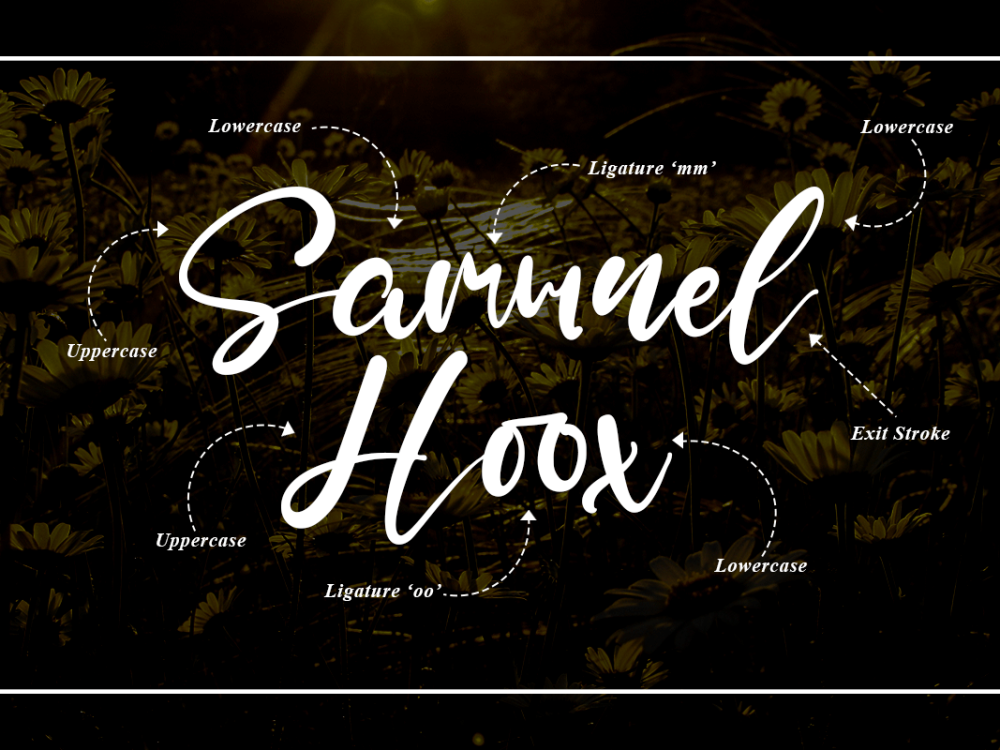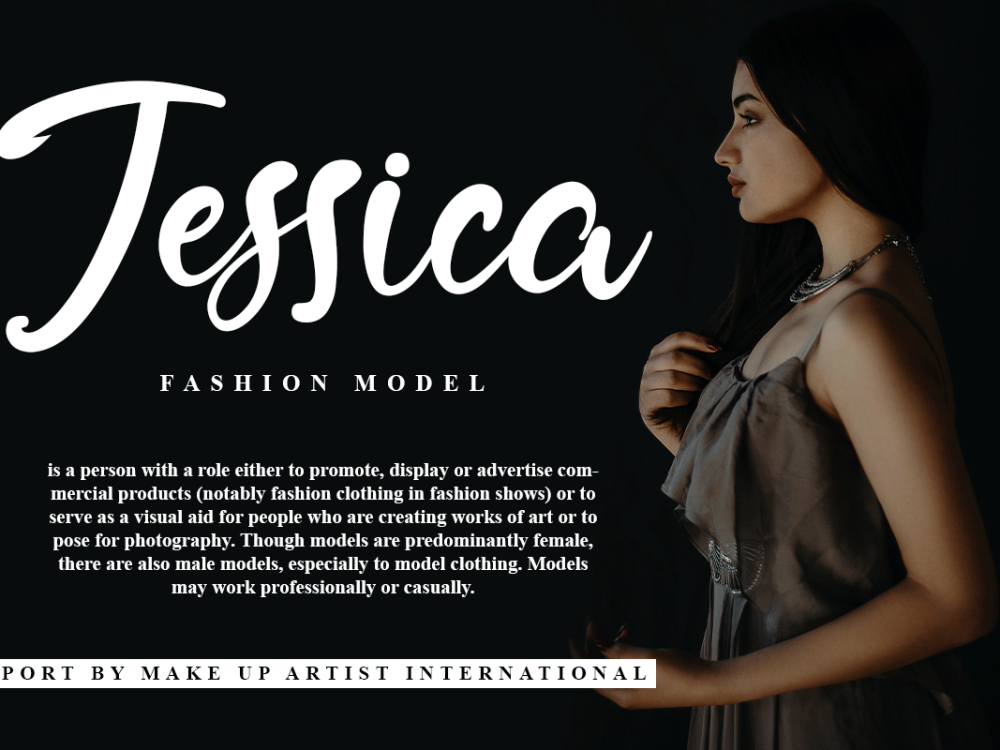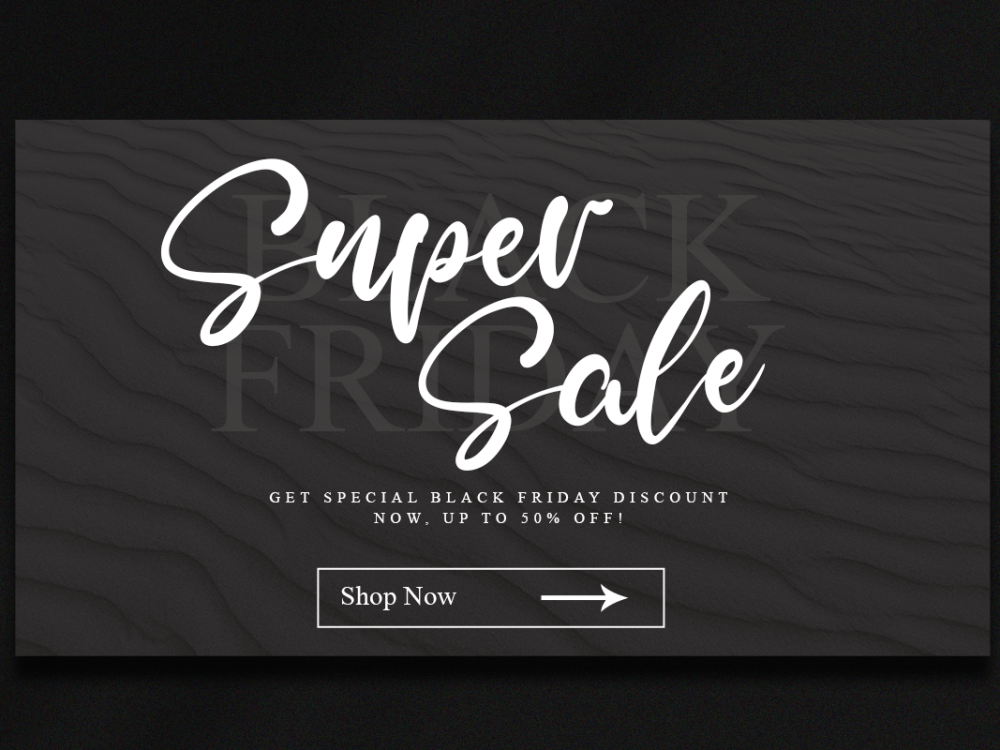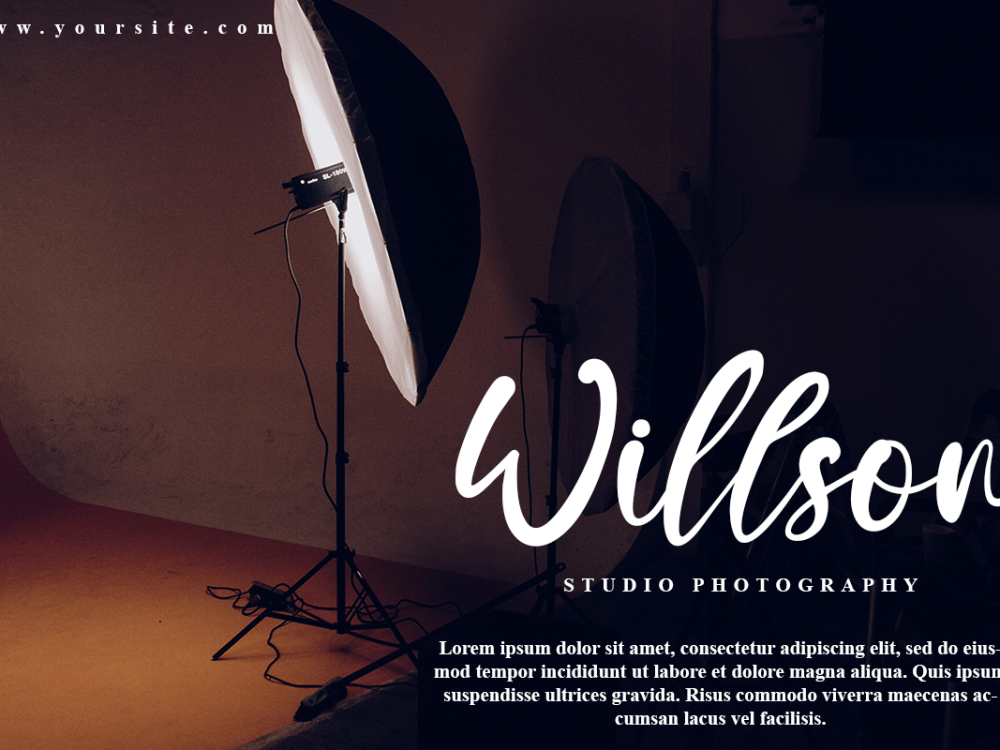
Lynette Free Font is a fashionable and chic script font tailored for individuals seeking a stunning and rejuvenating aesthetic for their designs. If you like it don’t forget to check out the full version.